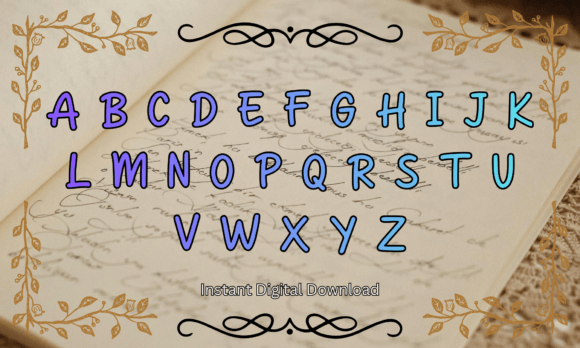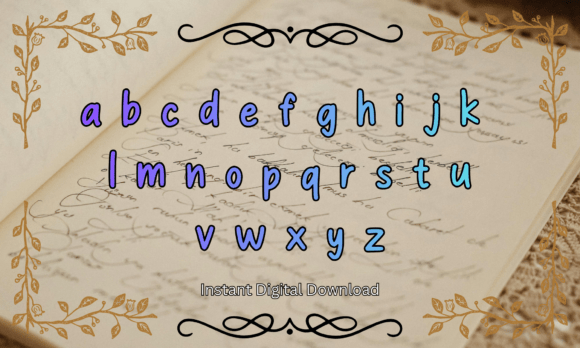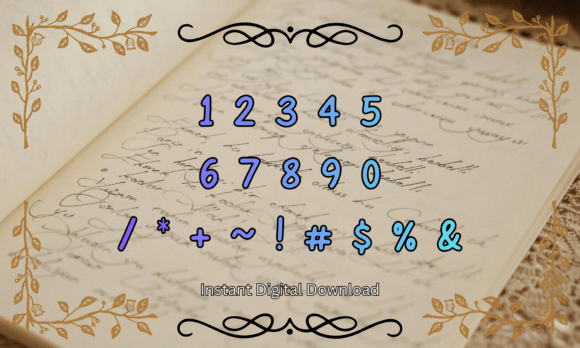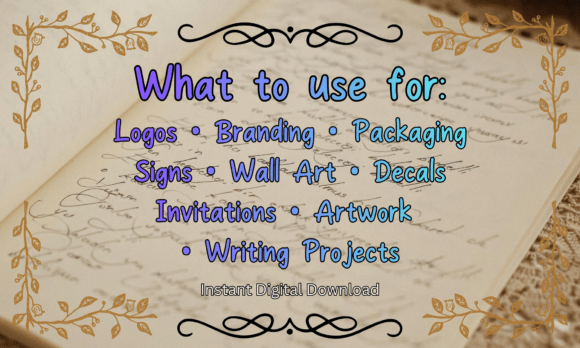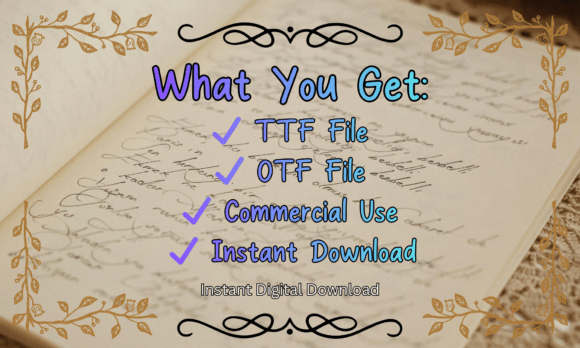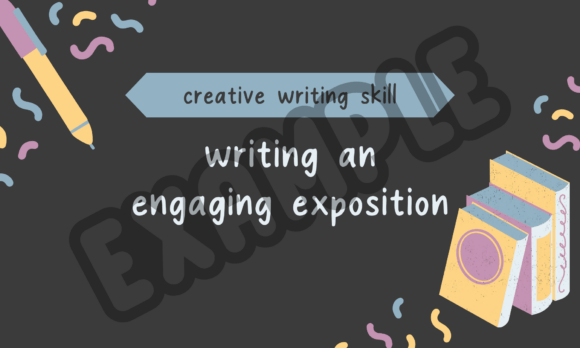
Add Warmth and Charm to Your Designs with Cozy Journal Font
Are you looking for a font that can bring a sense of warmth, comfort, and relaxation to your designs? Look no further than Cozy Journal, a soft handwritten-style font that is perfect for creating a cozy and inviting atmosphere in your projects. Inspired by peaceful mornings, warm drinks, and handwritten notebook pages, Cozy Journal is a beautiful font that features smooth, rounded letters and a friendly, casual flow.
Perfect for Cozy Lifestyle Branding and Crafting Projects
Cozy Journal is ideal for designers and crafters who want to create a warm and welcoming feel in their projects. Whether you’re creating digital planners, printable stationery, stickers, or social media quotes, this font is sure to bring a relaxed and inviting vibe to your designs. The font is perfect for:
- Journals and planners
- Scrapbooking
- Stickers and decals
- Digital planners
- Printable inserts
- Social media quotes
- Cozy lifestyle branding
- Notebooks and covers
Font Features
Cozy Journal includes:
- Uppercase letters
- Lowercase letters
- Numbers
- Basic punctuation
- Clean handwritten strokes
Font Style
Cozy Journal has a beautiful, cozy aesthetic that is perfect for creating a warm and inviting atmosphere in your designs. The font features smooth, rounded letters and a friendly, casual flow that is sure to make your projects stand out.
Tips for Using Cozy Journal
Here are a few tips for using Cozy Journal in your designs:
- Use Cozy Journal to create a warm and welcoming feel in your digital planners and printable stationery.
- Pair Cozy Journal with other fonts to create a unique and interesting contrast.
- Use Cozy Journal to add a personal touch to your social media quotes and cozy lifestyle branding.